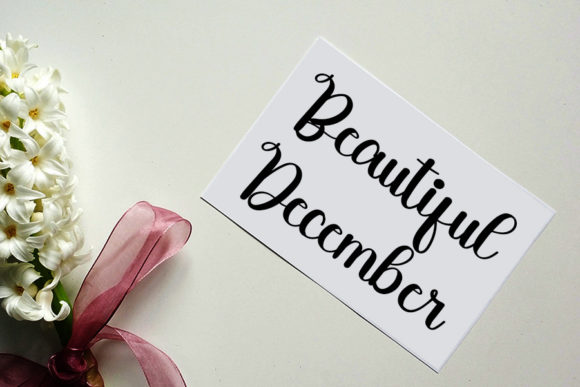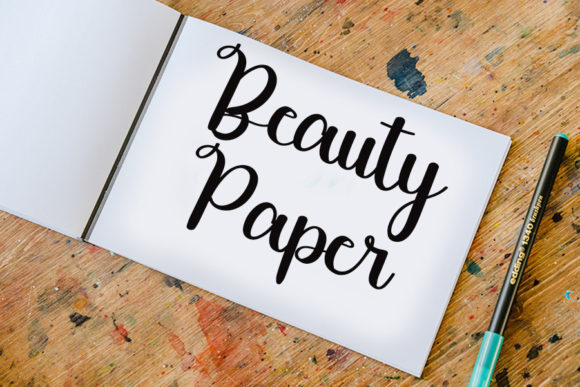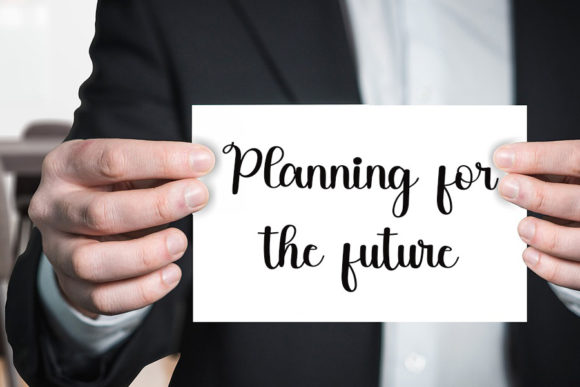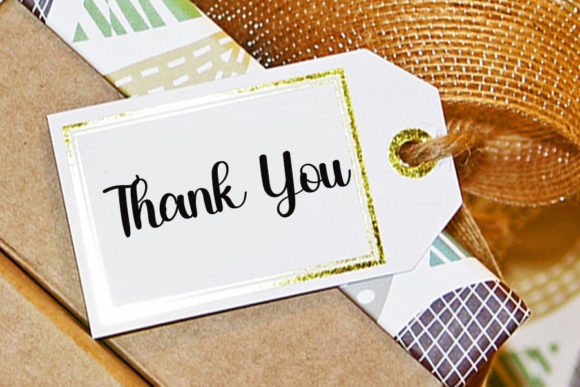
Introduction to Farmwork Font
Have you ever found yourself in a creative rut, staring at a blank page or screen, desperately searching for the perfect design element to bring your idea to life? For designers and artists alike, this struggle is all too familiar. But what if you stumbled upon a font that not only added a touch of elegance to your project, but also transported you to a whimsical world of rural charm?
Meet the Farmwork Font, a magical script font that’s sure to elevate any creative project from ordinary to extraordinary. Whether you’re crafting a beautiful logo, designing a stunning invitation, or creating a visually appealing social media post, this high-quality font is the perfect design resource to add a personal touch. And the best part? It’s available for free download, making it accessible to designers of all levels and skill sets.
Farmwork Font Key Features
- Features a unique and modern design, perfect for branding and design projects.
- Easy to use and customize, with a wide range of font styles and weights.
Honest Review: Farmwork Font
As a designer, I’m always on the lookout for unique and high-quality design resources to elevate my creative projects. The Farmwork Font caught my attention with its charming, rustic aesthetic.
- ✨ The font’s versatility in conveying a sense of nostalgia and simplicity, making it perfect for branding and editorial projects.
- ✨ The clear, readable font styles that ensure your message is conveyed effectively.
- ⚠️ Limited font styles and variations may restrict its use in complex design projects.
- ⚠️ Some users may find the font too simplistic for more modern or abstract design concepts.
Overall, I’m impressed with the Farmwork Font’s charm and quality. While it may not be the most versatile font, its unique character and free download option make it a great addition to any designer’s toolkit.
Tips for Getting the Most Out of Farmwork Font
Experiment with different font sizes and colors to create a unique look. Combine the Farmwork Font with other design elements, such as images or graphics, to add depth and interest to your project.
Common Use Cases for Farmwork Font
The Farmwork Font is perfect for designing logos, social media graphics, presentations, and documents. It’s also great for creating high-quality graphics and design elements with a transparent background.